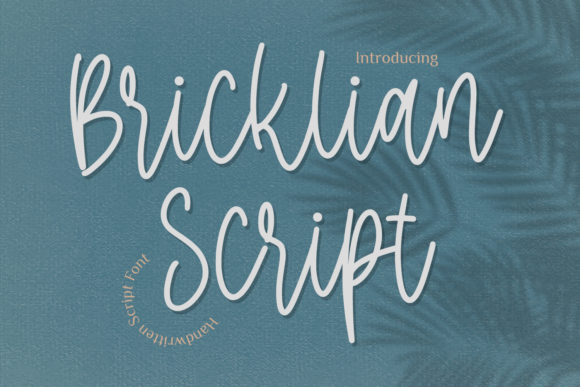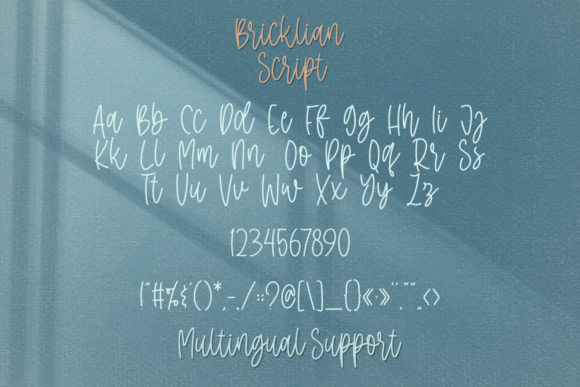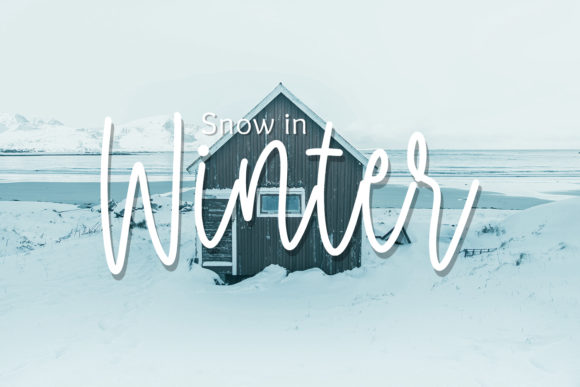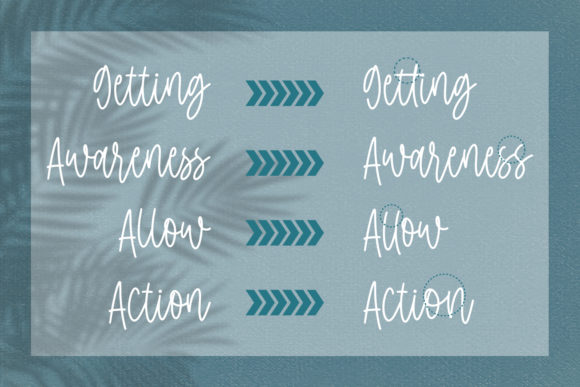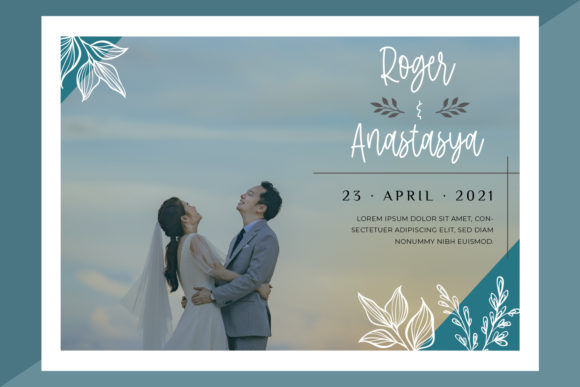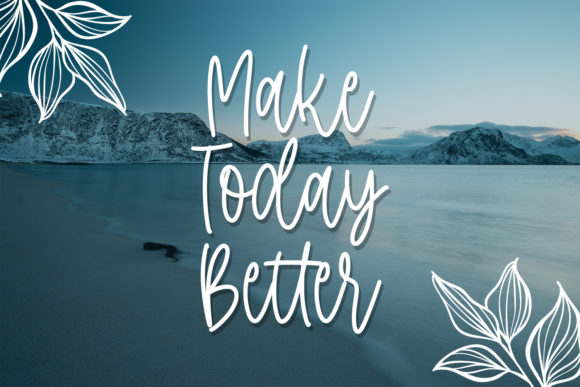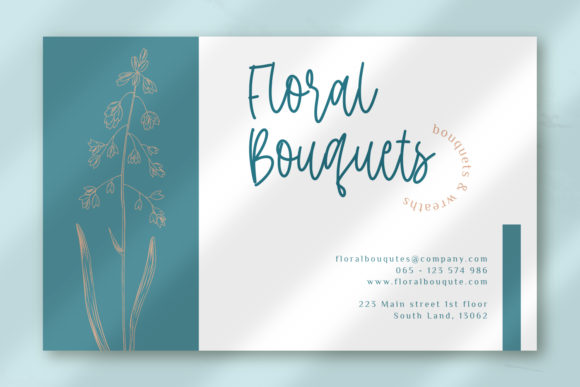
Bricklian Script Font
About Bricklian Script Font
Bricklian Script is a relaxed and a bit sloppy handwritten font. Add it confidently to your projects, and you won’t be disappointed.